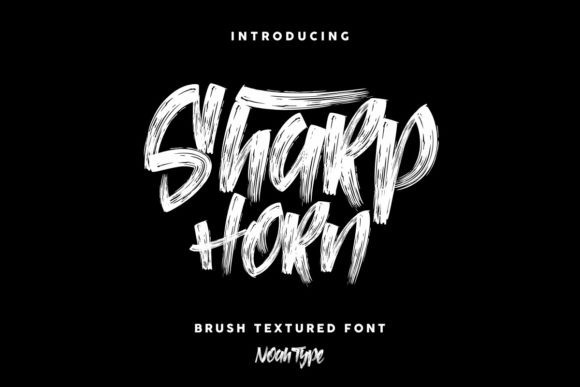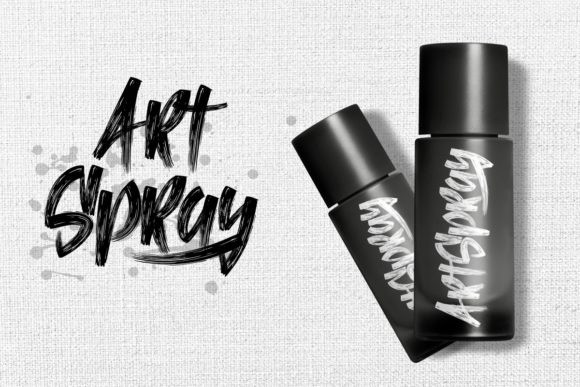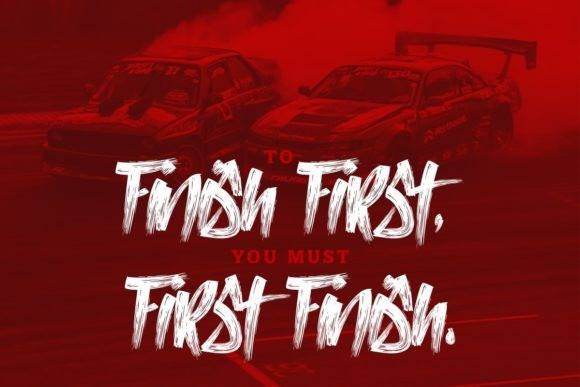
SharpHorn Font
SharpHorn is a cool, brushed and urban styled display font. It is PUA encoded which means you can access all glyphs and swashes with ease!